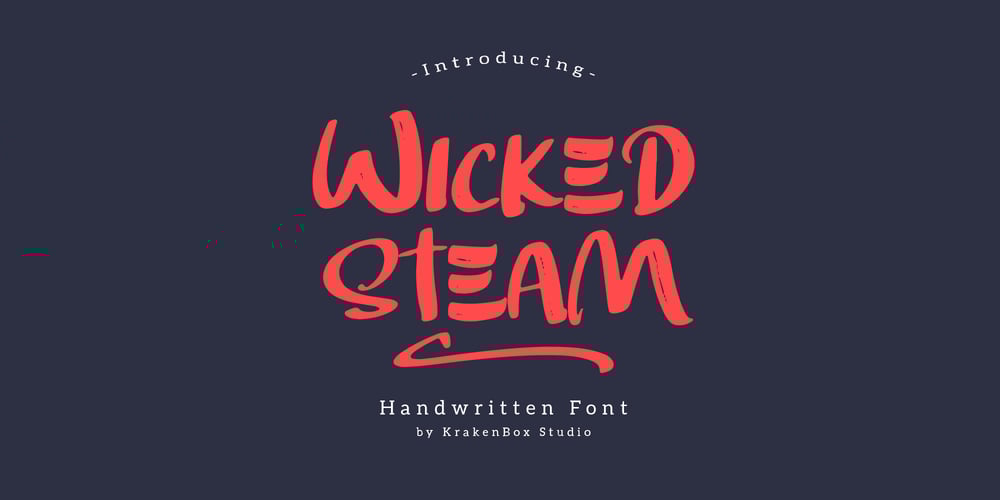
Wicked Steam Font Family was designed by Yahdi Kumala and published by Krakenbox Studio. Wicked Steam contains 2 styles and family package options. Wicked Steam is a handwritten script font. This stunning handwritten font is cute, fun, classy, and Cool. It’s a great font for fashion, apparel projects, signature, album cover, logo, branding, magazine, social media, & advertisements, but also works great for other projects.